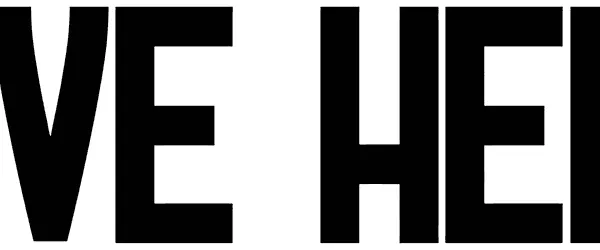
Quixotic Sans Font
Let’s use a modest and humble letterform like this for your upcoming project to show your confidence. This basic font has a bold and professional mood, and you can apply it to any layout. Use Quixotic Sans font to complete your design see the unique style of the final draft.